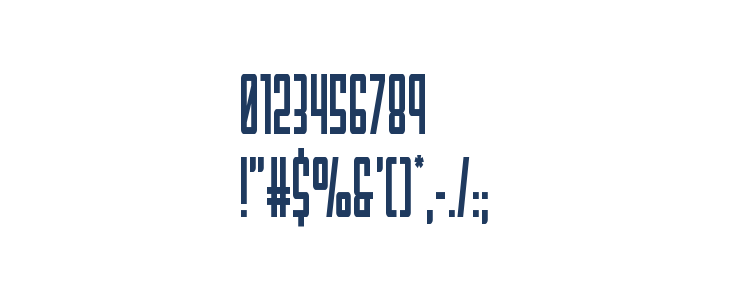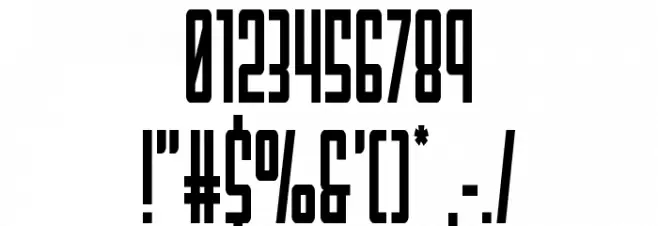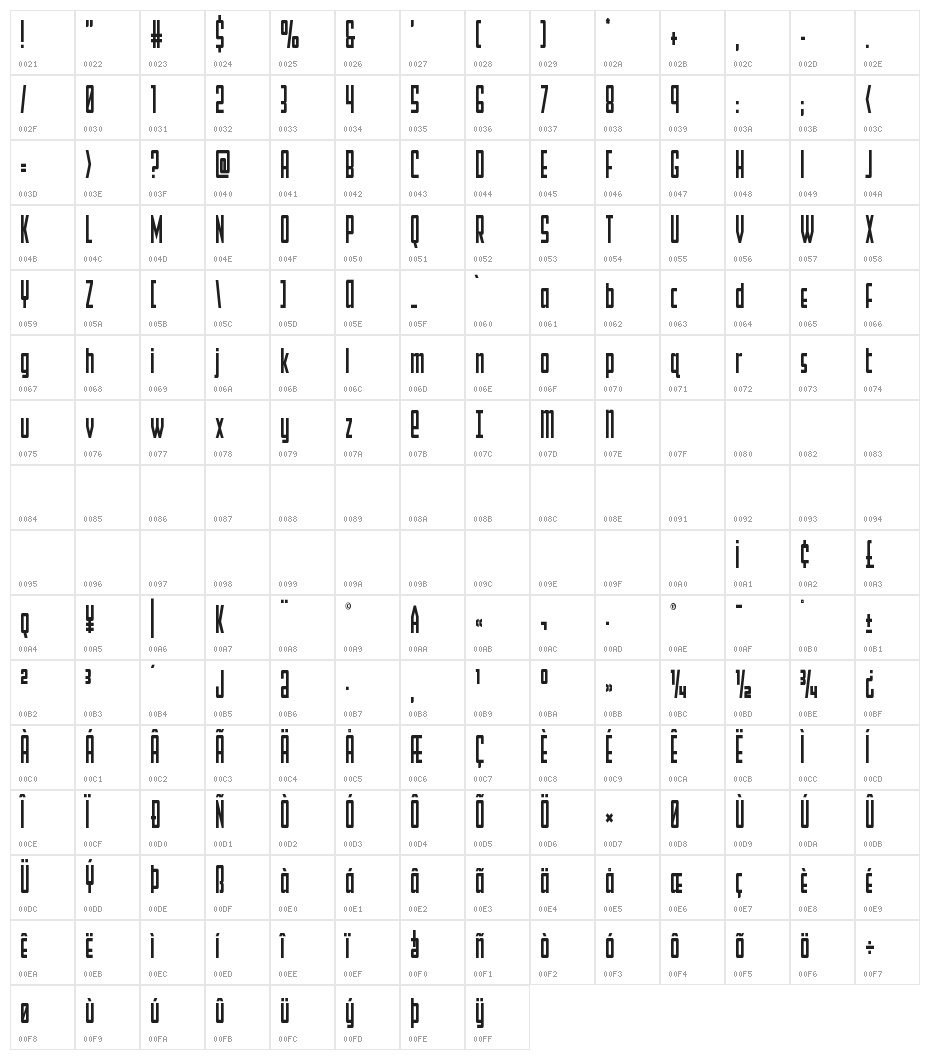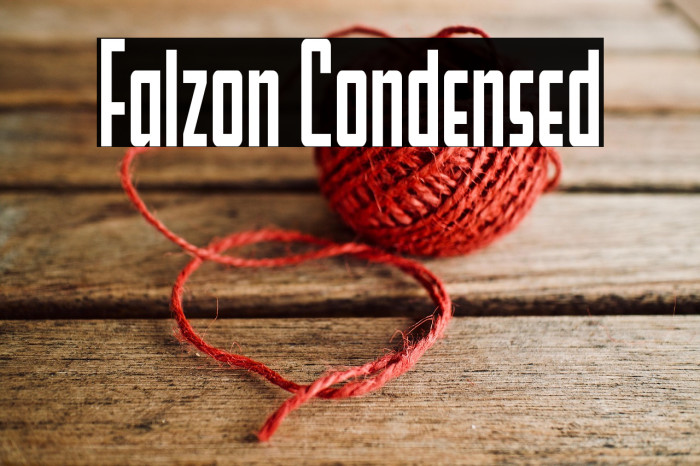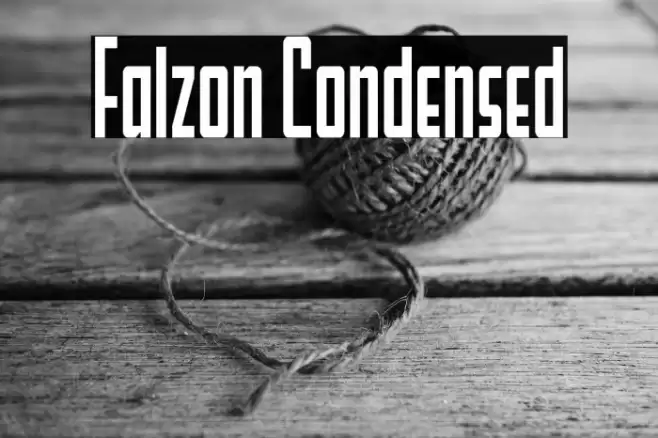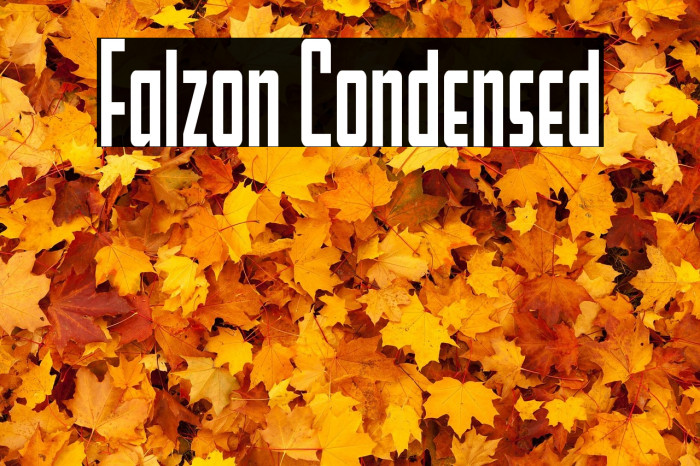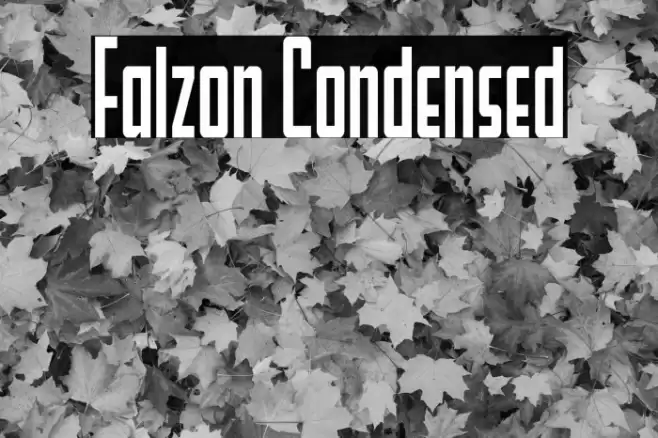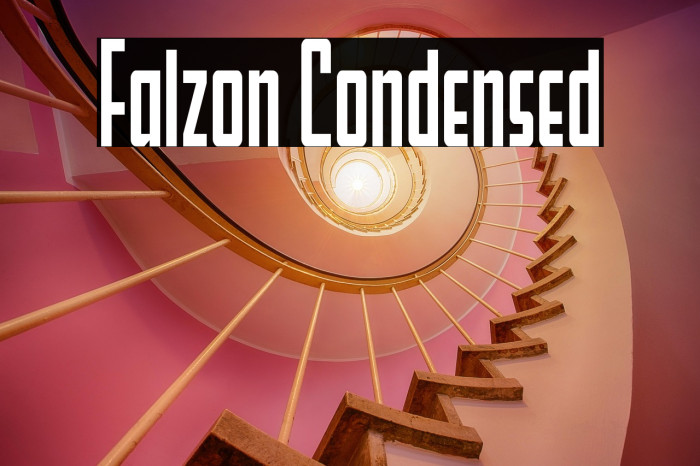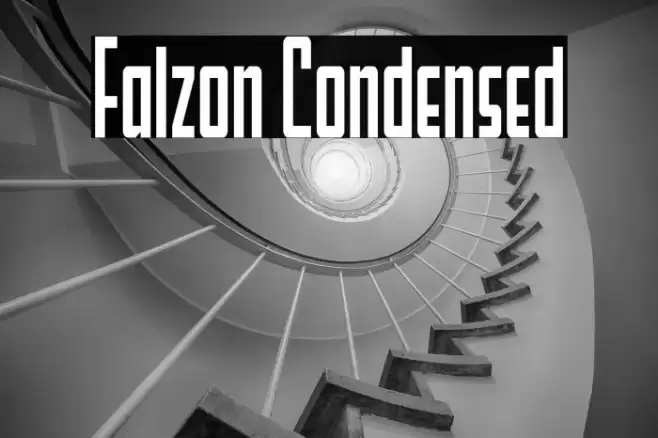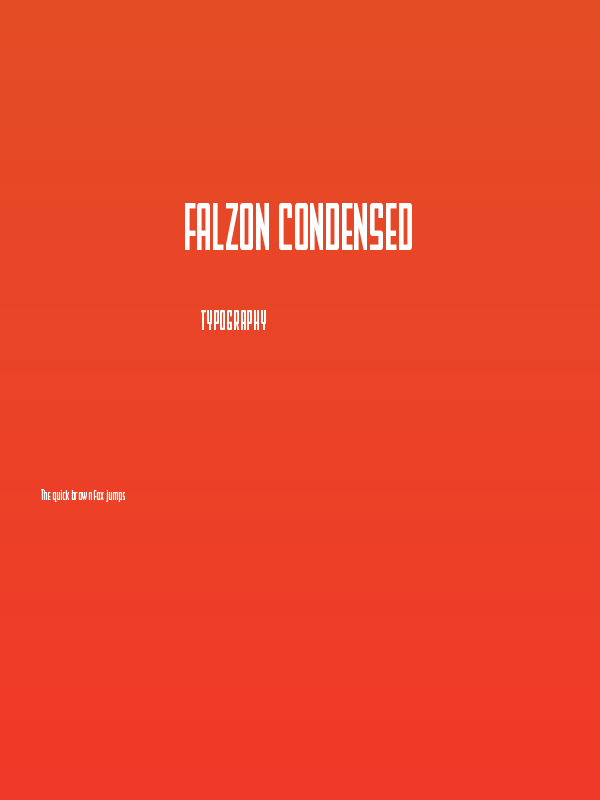
Falzon Condensed Font
Falzon Condensed Description
This font features a bold and condensed style, characterized by its tall and narrow letterforms. The uppercase and lowercase letters maintain a consistent height, creating a uniform appearance. The design is modern and sleek, with clean lines and minimal embellishments, making it highly legible even at smaller sizes. The numerals and special characters are crafted to match the overall aesthetic, ensuring a cohesive look across all text elements. This font's condensed nature allows for efficient use of space, making it ideal for headlines and titles where impact is essential.
Proposed ProjectsIdeal for use in headlines, posters, and branding materials where space is limited but impact is needed.